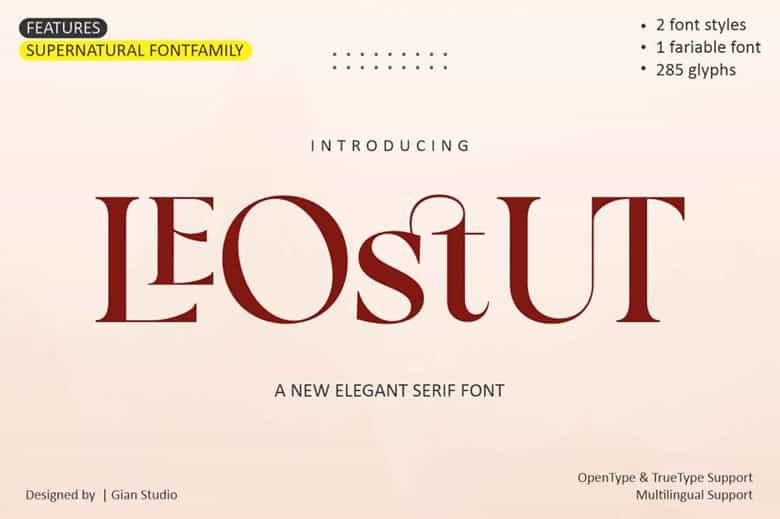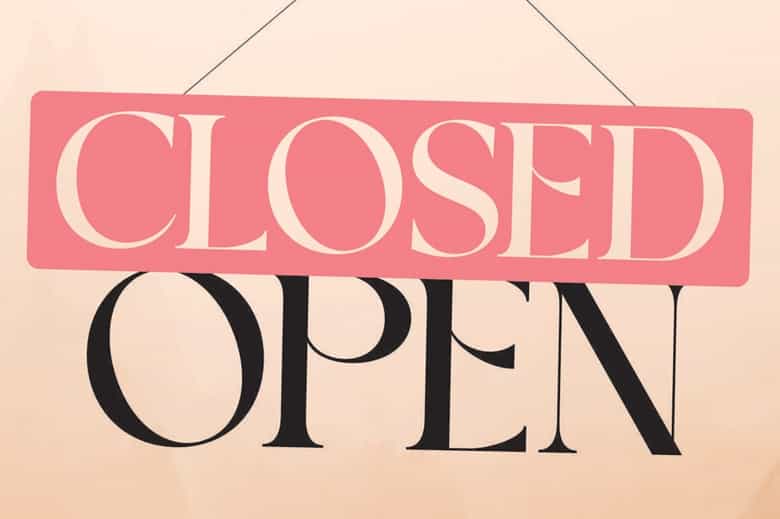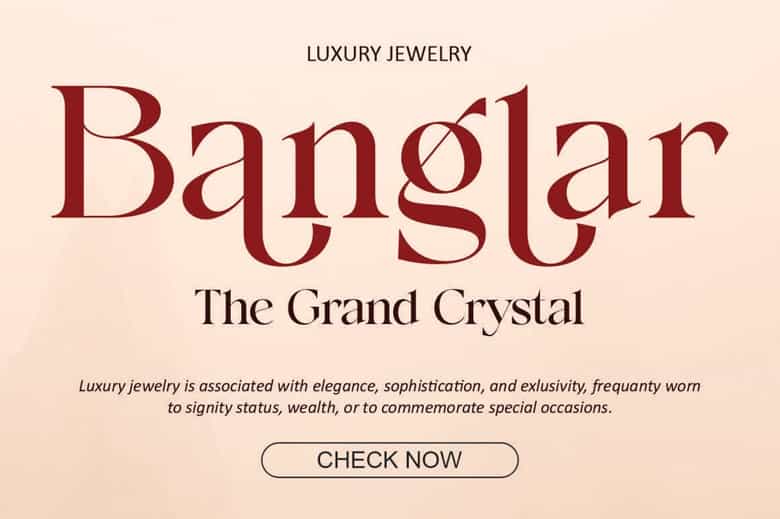
Leostut is one of the clean styled, elegant and modernist serif fonts having the traditional touch. Thus, supporting 2 types of Font, namely the Upright and the Italic features together with Swollen Stems and Italic that arises in the same Font character. The application options of opentype include supports for multiple languages, and typography like ligatures.